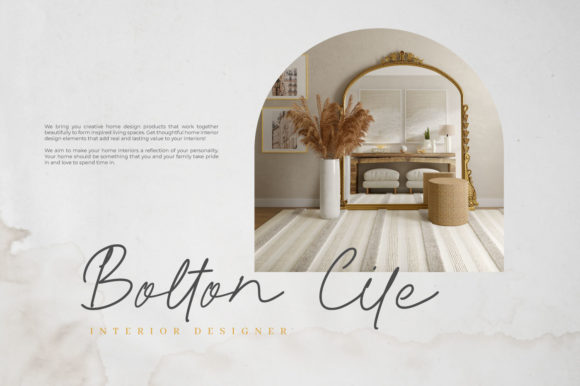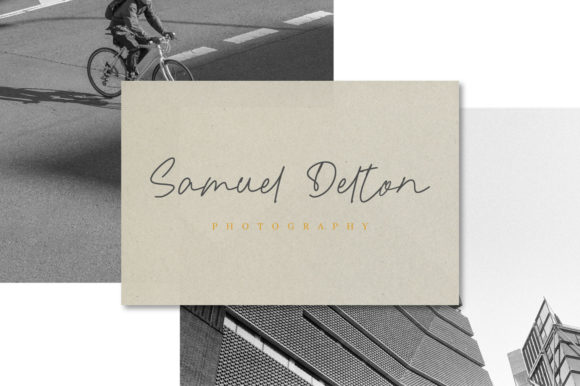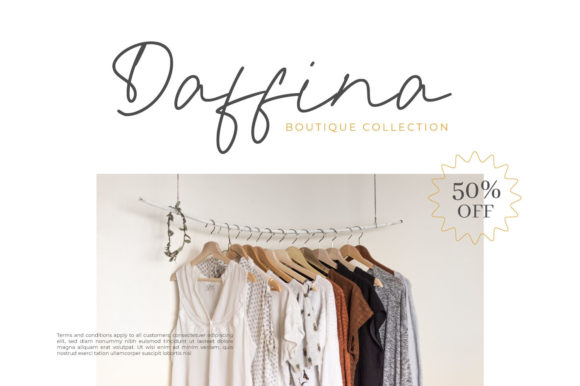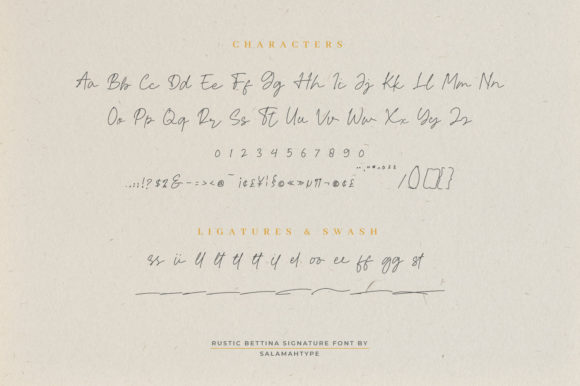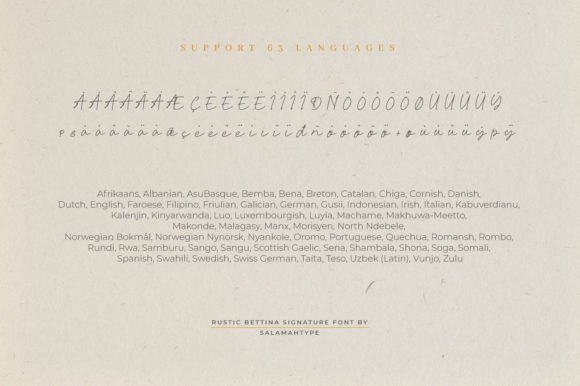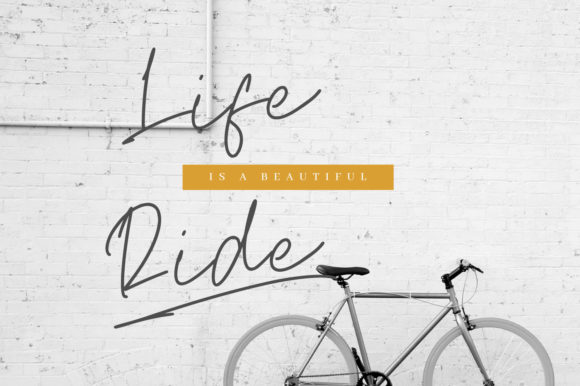
Rustic Bettina Font
About Rustic Bettina Font
Rustic Bettina is an elegant script font like a pen ink brush that is both strong and flexible. This font is suitable for logos, social media posts, advertisements, product packaging, branding projects, wedding invitations, product designs, label, photography, watermark, stationery and so much more.